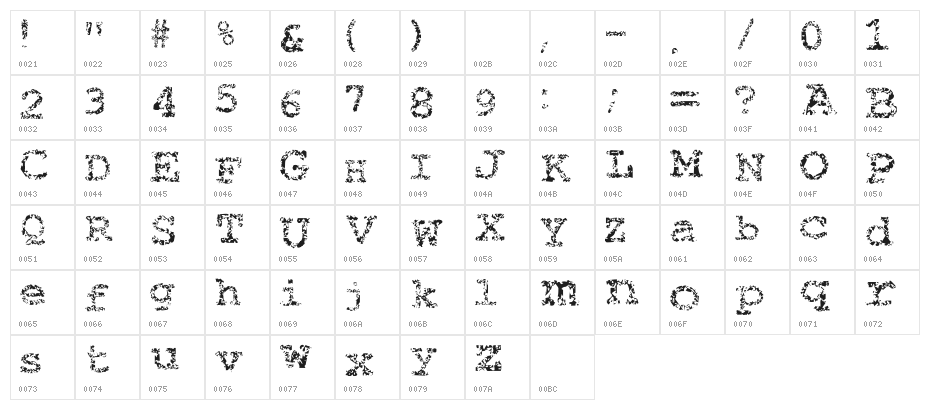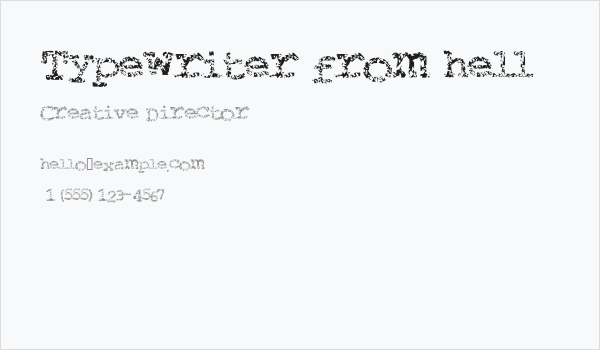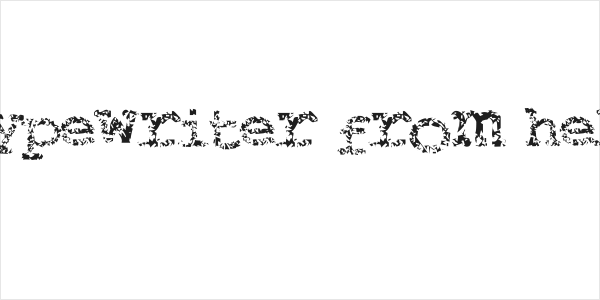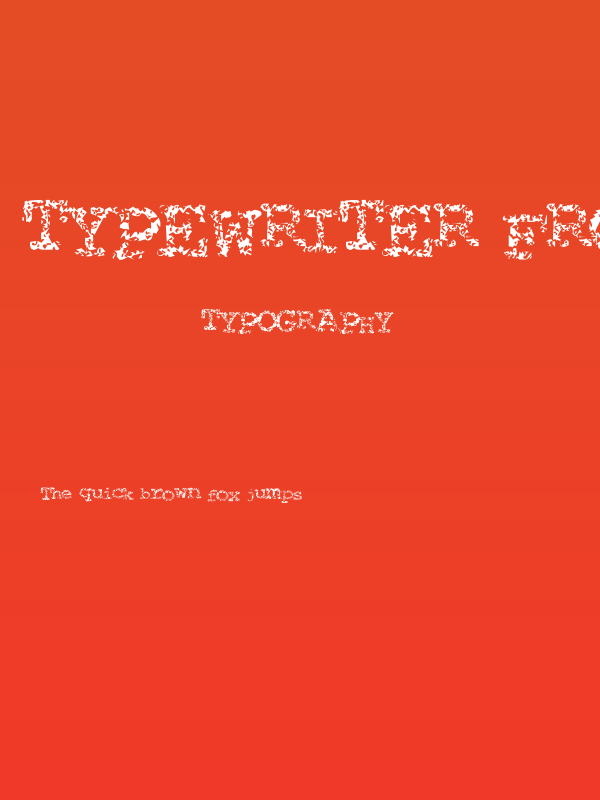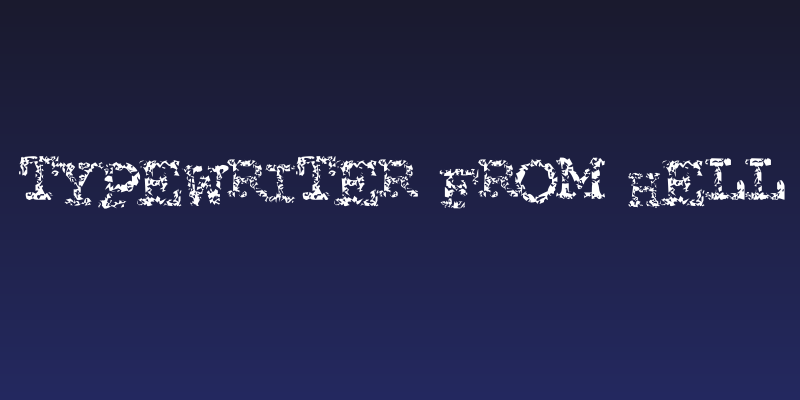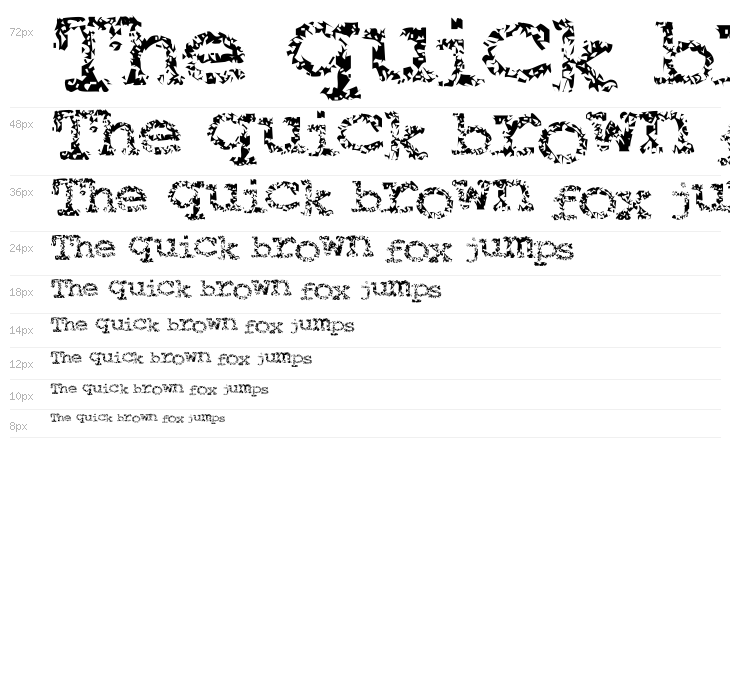
Typewriter from hell Font
Typewriter from hell Description
This font features a distressed, chaotic appearance, reminiscent of a typewriter gone awry. The characters are heavily textured with irregular, jagged edges, giving them a rough and worn look. This creates a sense of disorder and unpredictability, making it ideal for projects that require a grunge or horror aesthetic. The uppercase and lowercase letters maintain a consistent style, while the numbers and special characters follow the same distressed pattern. The overall effect is striking and bold, capturing attention with its unique, edgy design.
| Overall Style | Grunge, Distressed |
| Use Case | Headlines, Posters, Album covers |
| Proposed Projects | Ideal for horror-themed posters, album covers, or any design needing a gritty, unsettling vibe. |